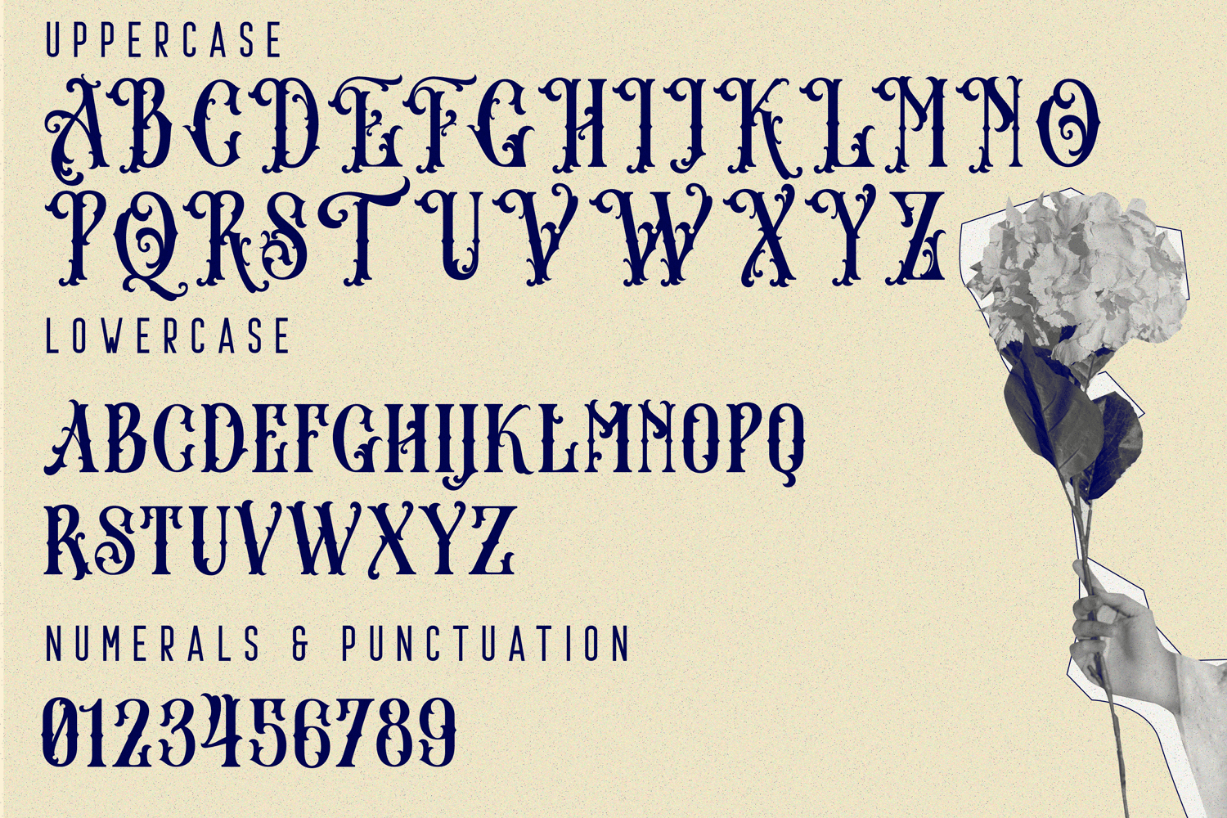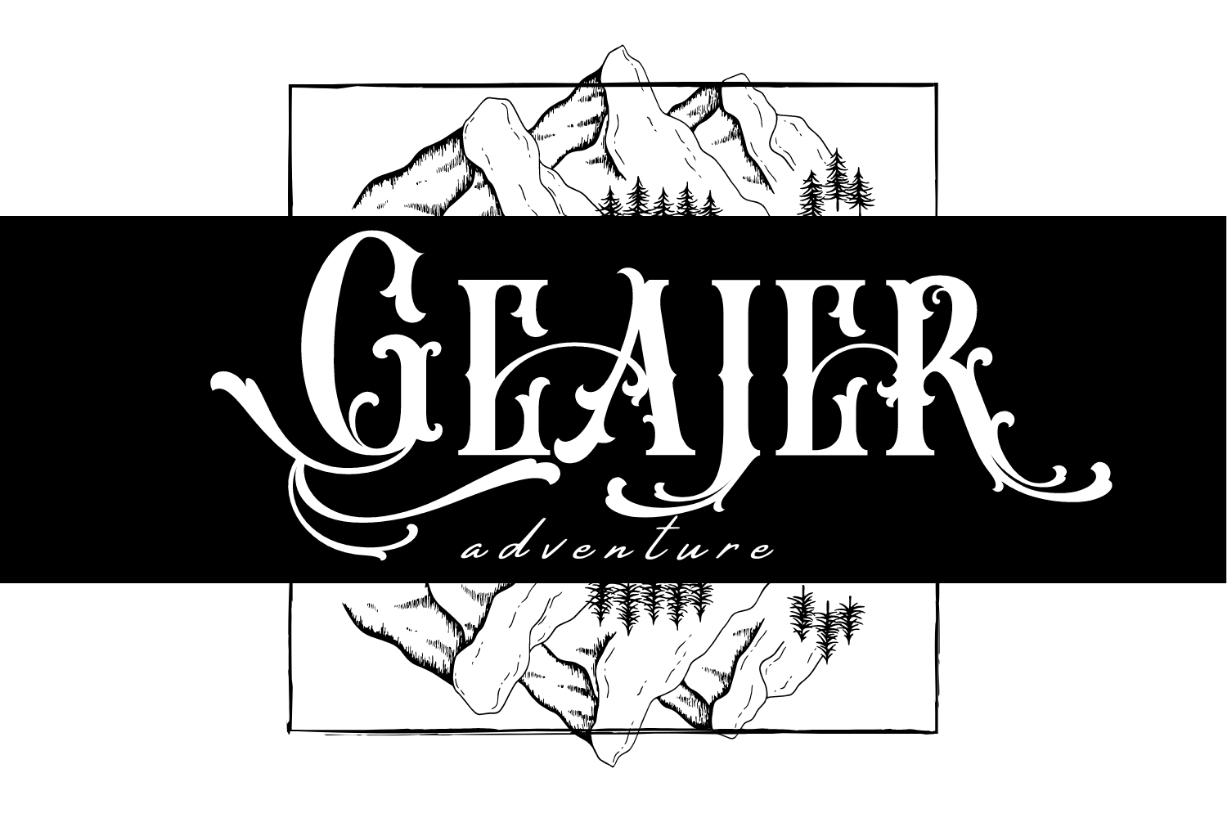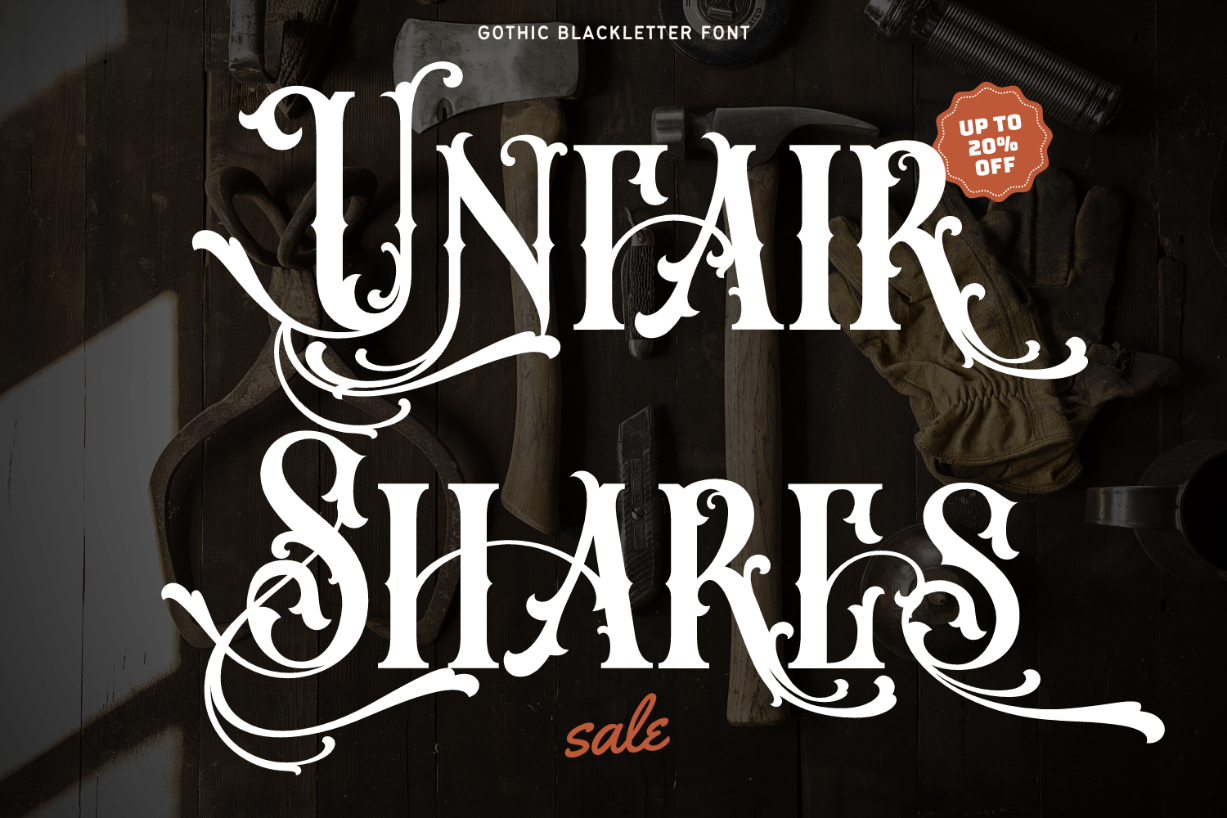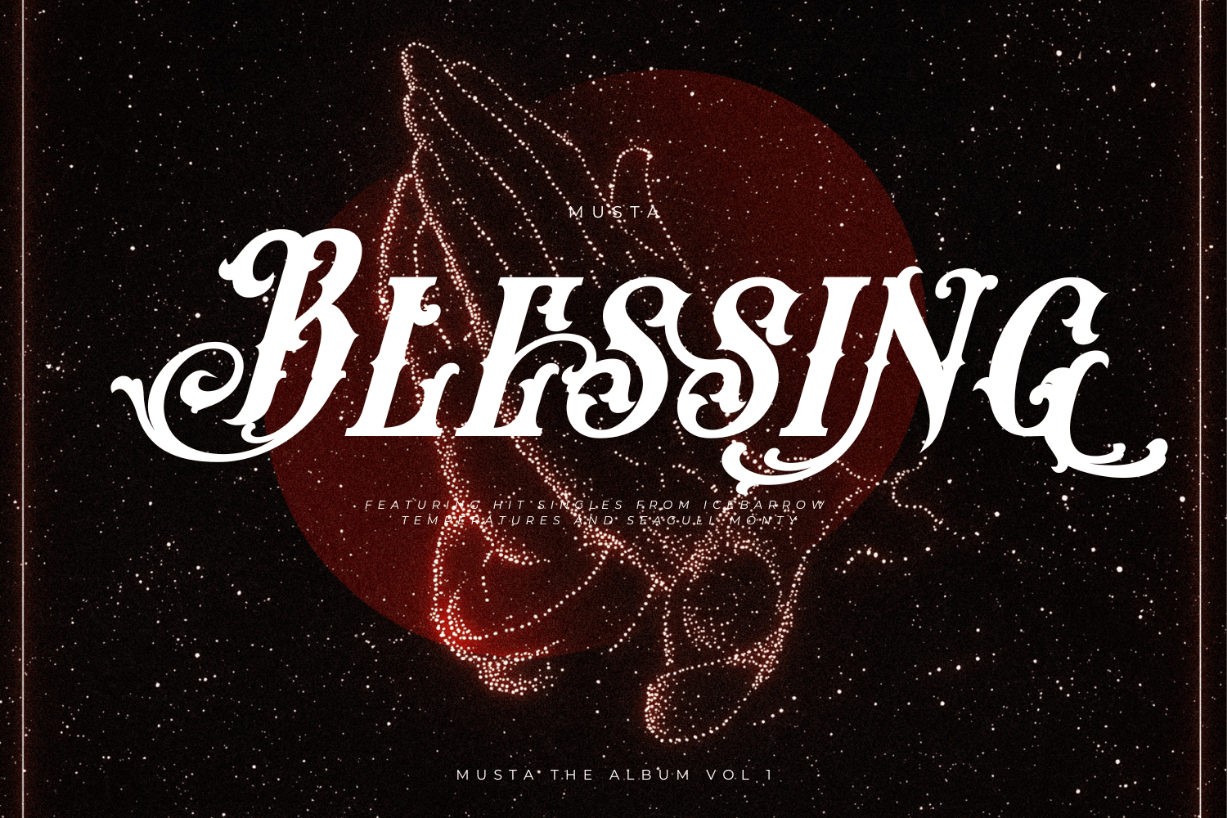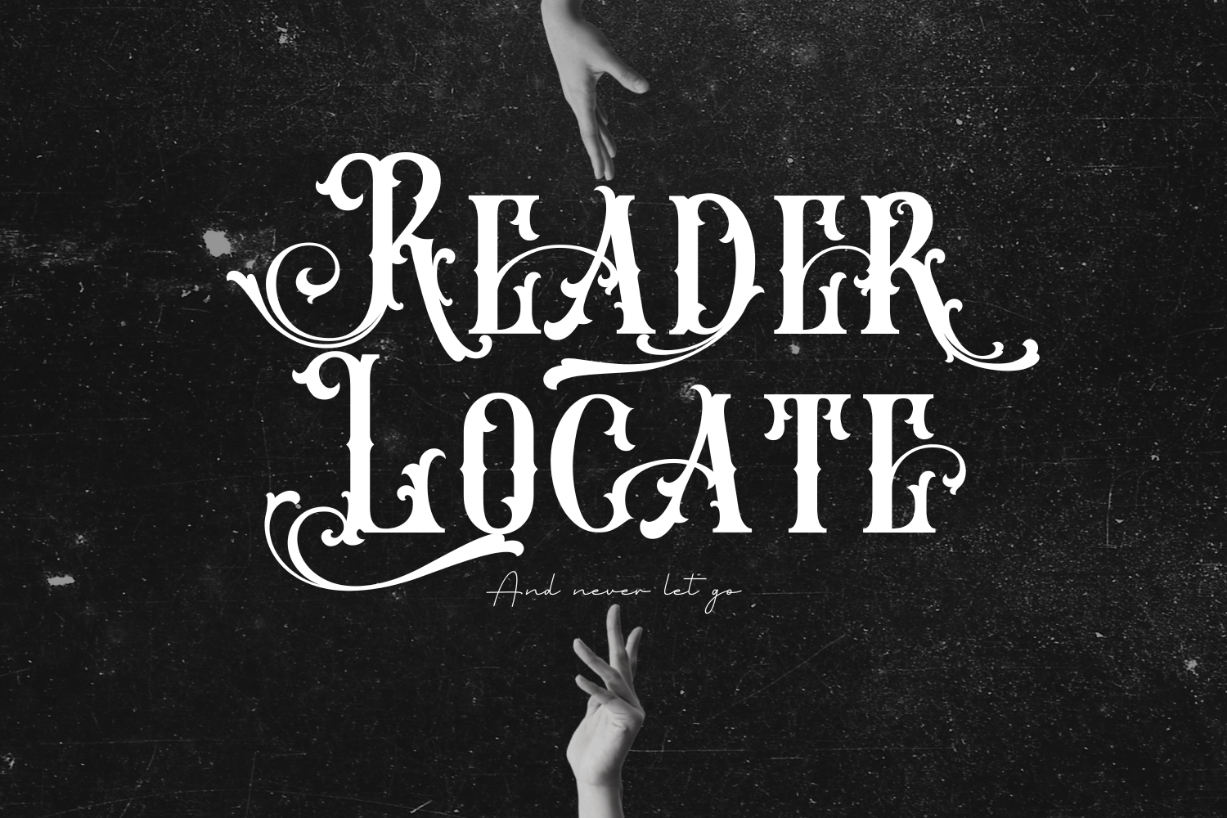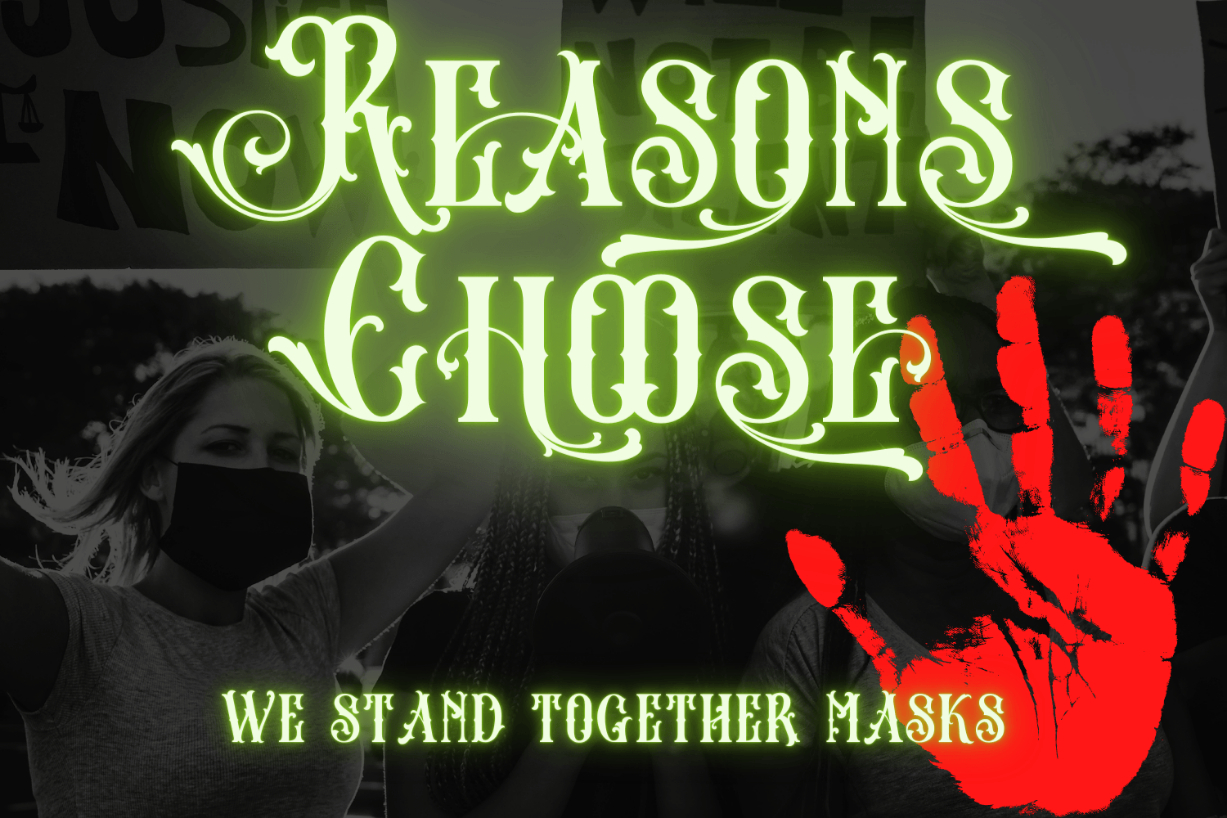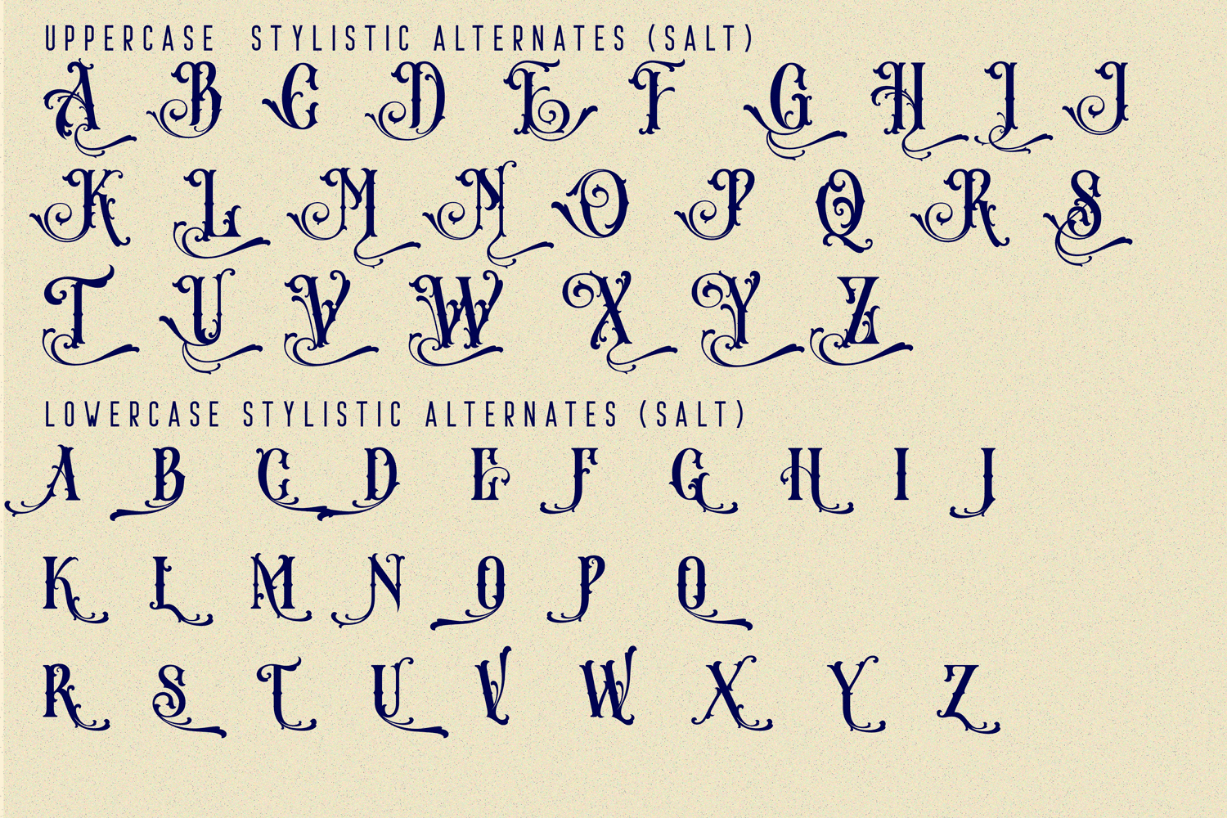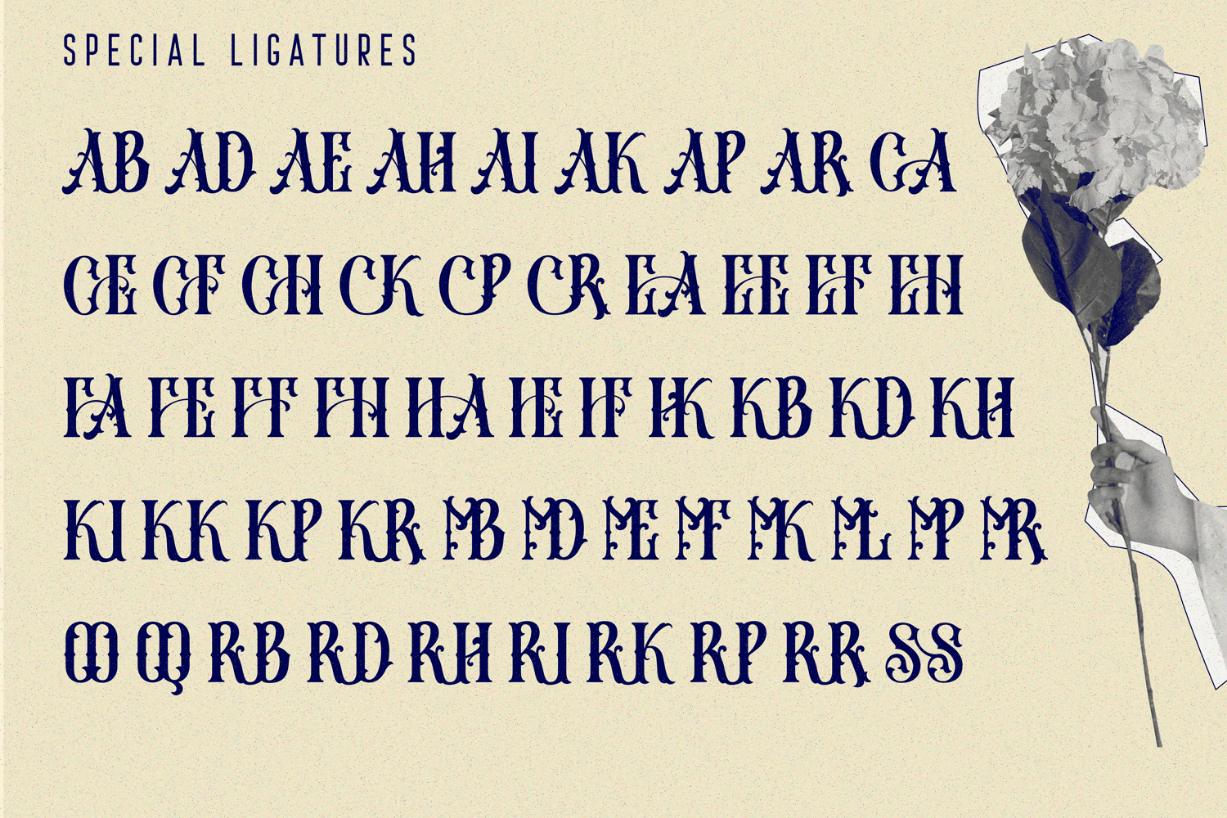
Unfair Shares Font
About Unfair Shares Font
Unfair Shares is a splendid blackletter font that will impress with its stylish features. Use it for product packaging, branding, or other projects that need bold and daring typography!